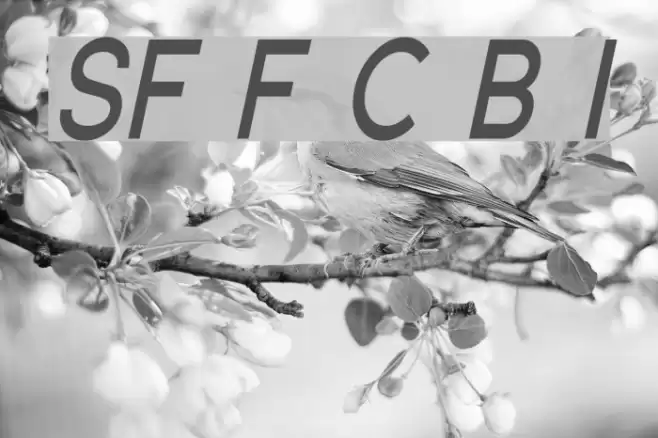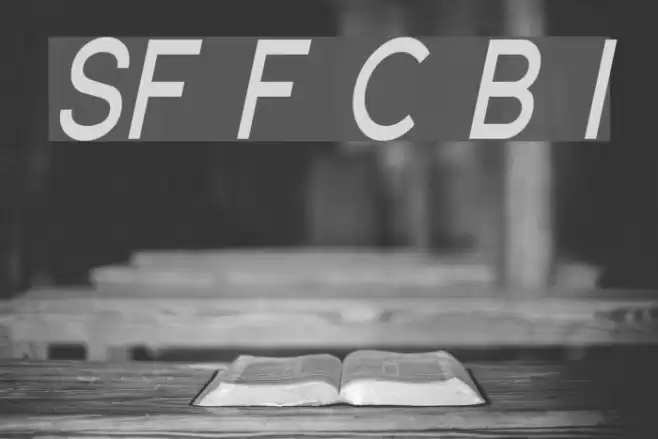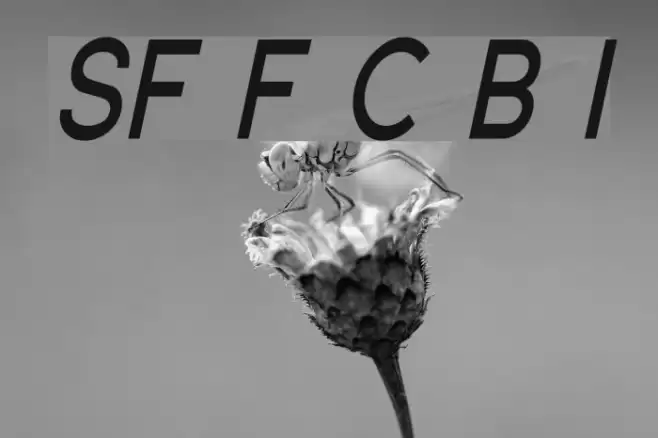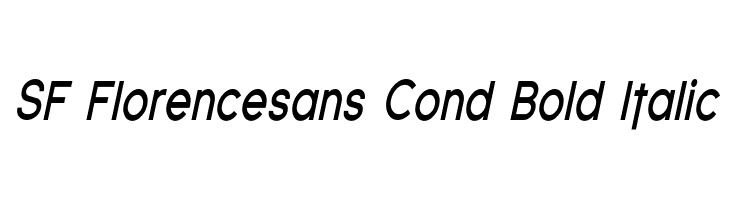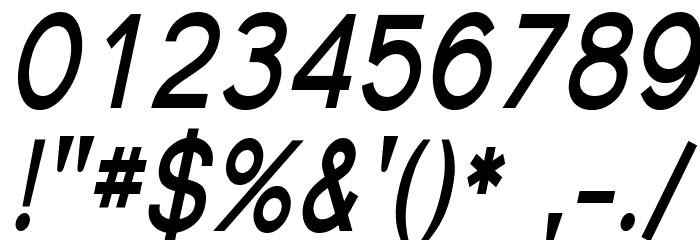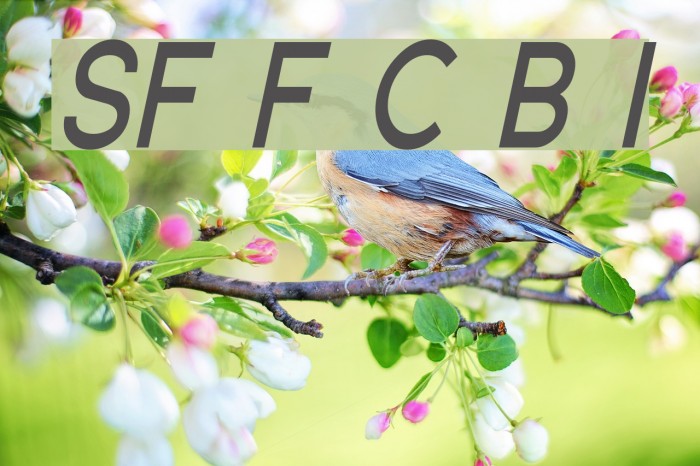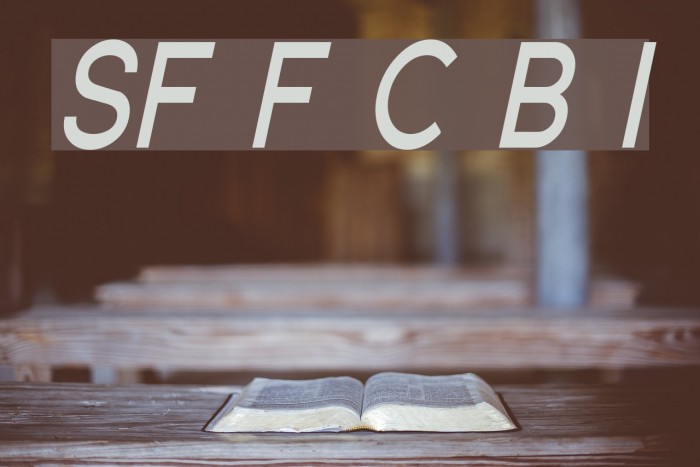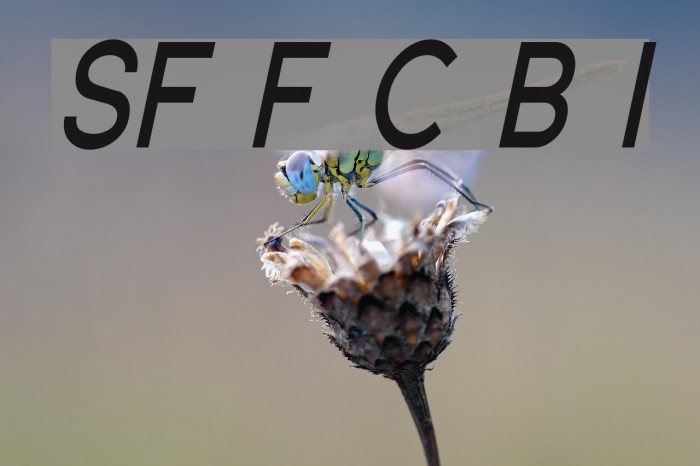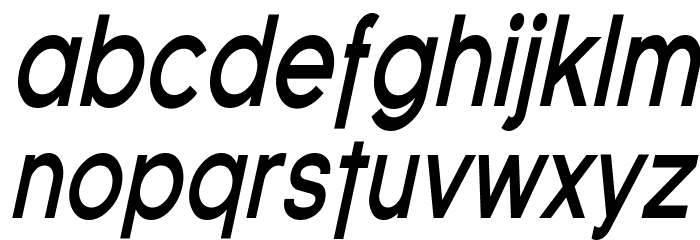
SF Florencesans Cond Bold Italic Font
SF Florencesans Cond Bold Italic Description
This font features a modern and sleek design with a condensed structure, giving it a compact and efficient appearance. The bold weight adds a strong presence, while the italic style introduces a dynamic and forward-leaning posture. The characters are well-defined with smooth curves and clean lines, making it highly legible. The spacing between characters is tight, enhancing its compact nature. The font exhibits medium contrast in stroke thickness, providing a balanced and harmonious look. Its overall style is contemporary, making it suitable for various modern applications.
A modern, bold, and italic condensed font with tight spacing and medium contrast from Uncategorized fonts.
- Proposed Projects: Ideal for branding, advertising, headlines, and editorial design where a modern and impactful look is desired.
- Character Spacing: Tight
- Use Case: Headlines, Logos, Branding